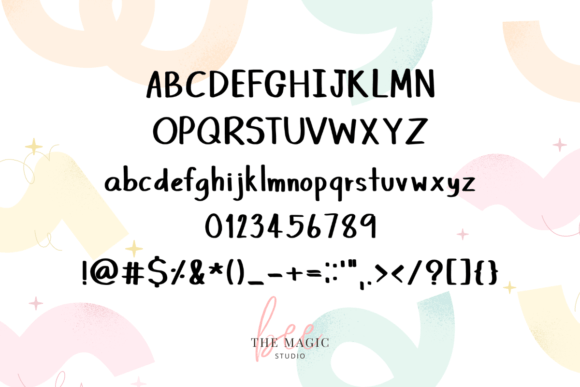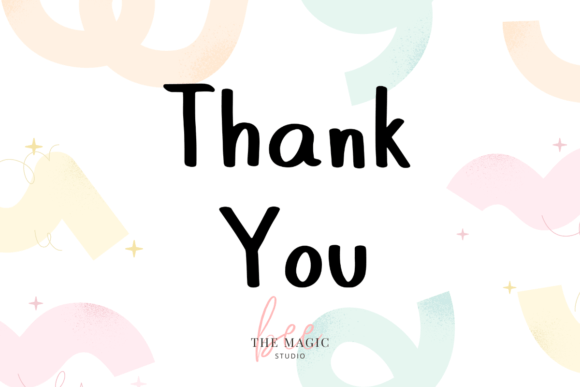
Introducing Happy Bee Font: The Ultimate Go-To Font for Designers and Crafters
Are you tired of using the same old fonts for your digital designs, crafts, and presentations? Look no further! Happy Bee Font is here to revolutionize your creative projects with its fun and casual simple font style. Whether you’re a designer, crafter, or DIY enthusiast, this font is sure to become your new favorite go-to font for all occasions.
What Makes Happy Bee Font So Special?
Happy Bee Font is a unique and refreshing font that stands out from the crowd. Its simple yet playful design makes it perfect for a wide range of creative projects, from digital designs and presentations to crafts and greeting cards. The font’s casual style gives it a friendly and approachable feel, making it ideal for projects that require a personal touch.
Uses for Happy Bee Font
One of the best things about Happy Bee Font is its versatility. Here are just a few ideas for how you can use this amazing font:
- Crafts: Use Happy Bee Font to add a personal touch to your handmade crafts, such as scrapbooking, card making, and DIY jewelry.
- Digital Design: Happy Bee Font is perfect for digital designers who want to add a playful touch to their designs, from social media graphics to website headers.
- Presentations: Make your presentations stand out with Happy Bee Font, which is sure to engage and delight your audience.
- Greeting Cards: Create one-of-a-kind greeting cards for special occasions, such as birthdays, holidays, and weddings.
Why Designers and Crafters Love Happy Bee Font
So, what makes Happy Bee Font so loved by designers and crafters? Here are just a few reasons:
- Easy to Read: Happy Bee Font is clear and easy to read, making it perfect for digital designs and presentations.
- Fun and Playful: The font’s playful design adds a touch of whimsy to any project, making it ideal for crafts and DIY projects.
- Versatile: Happy Bee Font can be used for a wide range of creative projects, from formal presentations to casual crafts.
- Unique: Happy Bee Font is a one-of-a-kind font that will set your projects apart from the crowd.
Tips for Using Happy Bee Font
Here are a few tips for getting the most out of Happy Bee Font:
- Experiment with Colors: Happy Bee Font looks great in a variety of colors, so don’t be afraid to experiment and find the perfect color for your project.
- Mix and Match: Combine Happy Bee Font with other fonts to create a unique and eye-catching design.
- Use it for Headings: Happy Bee Font is perfect for headings and titles, where its playful design can really shine.
In conclusion, Happy Bee Font is a fun and casual simple font that is sure to become your go-to font for all occasions. Its versatility, playfulness, and ease of use make it perfect for designers, crafters, and DIY enthusiasts. Whether you’re working on a digital design, craft project, or presentation, Happy Bee Font is the perfect choice. So why wait? Download Happy Bee Font today and start creating amazing projects that will delight and engage your audience!
With Happy Bee Font, the possibilities are endless. Its unique design and friendly feel make it the perfect addition to any creative project. So go ahead, get creative, and have fun with Happy Bee Font!